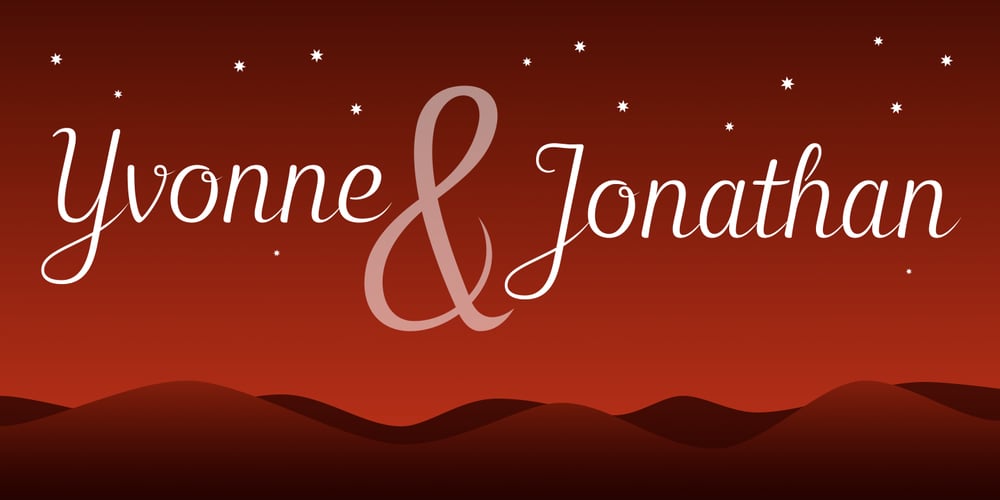
Hybi5 Finescript Font Family was designed by Peter Hübner and published by Hybi-Types. Hybi5 Finescript contains 1 styles and family package options. The Hybi5 Finescript is intended for the more reputable applications. It’s fine and elegant look makes it great for invitations, menu and concert. The Hybi5 Finescript is technically based on my Hybi5 font family, but with a significantly different appearance. The font contains a lot of accents, ligatures and special characters. Please be sure to set kerning to “metric” and spacing to “zero” in your layout app and please allow ligatures for a more smooth look.